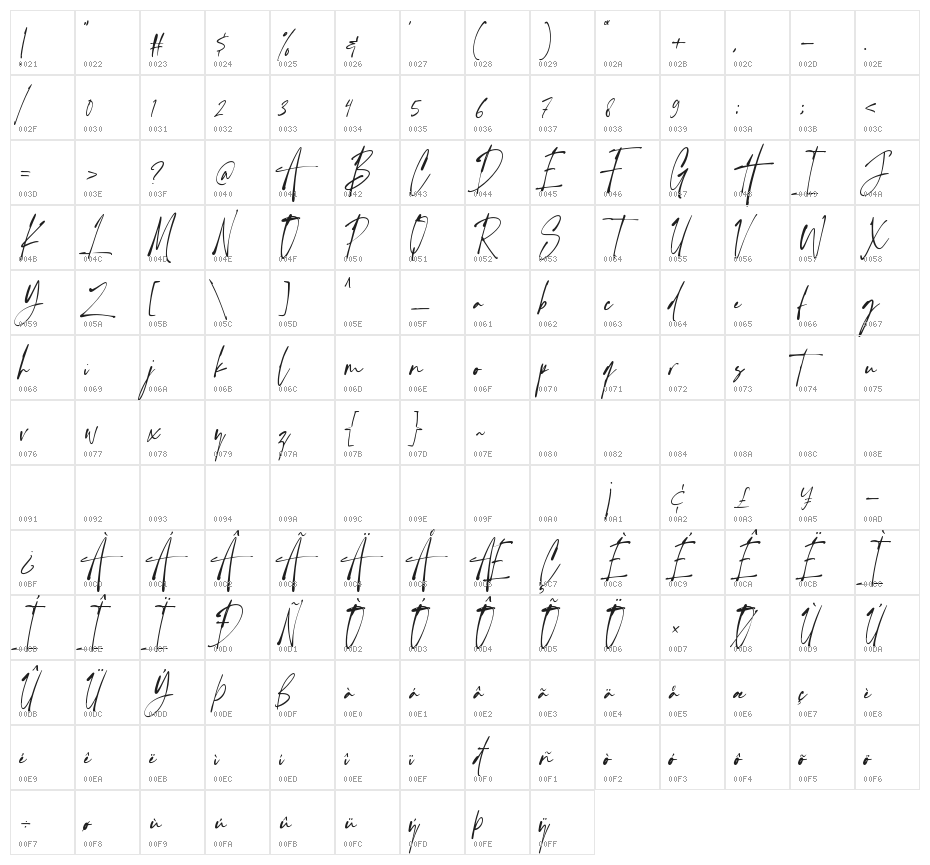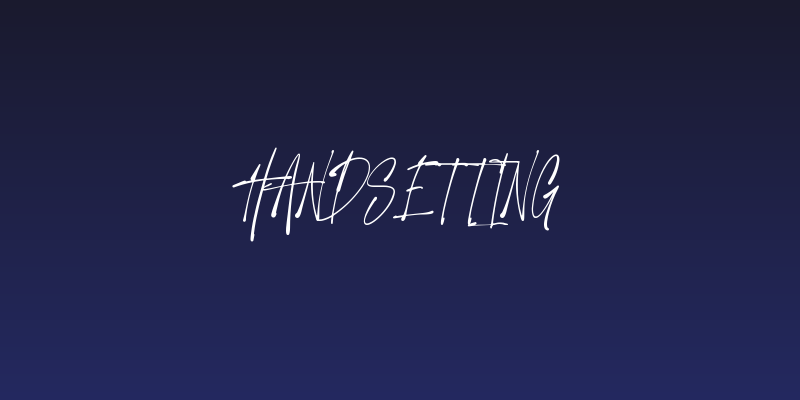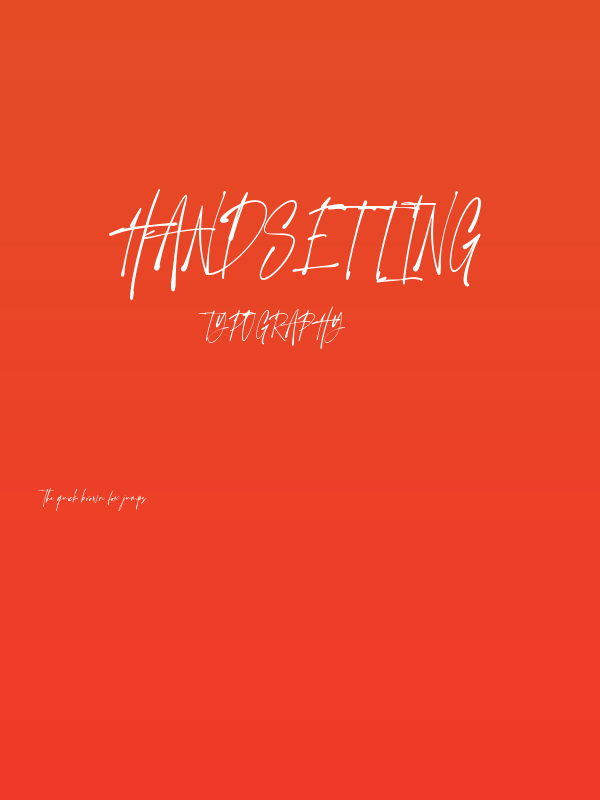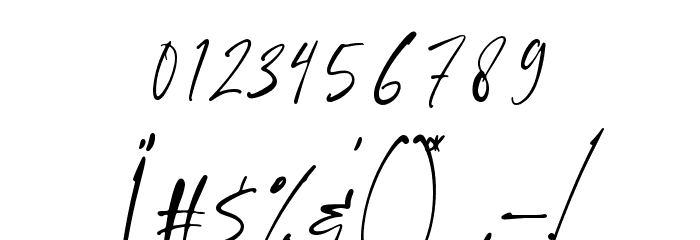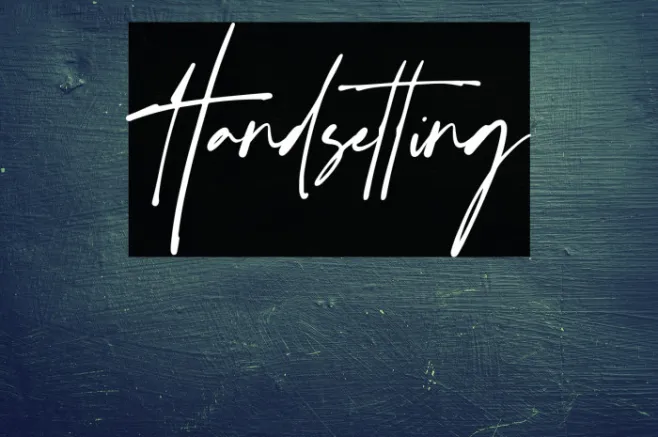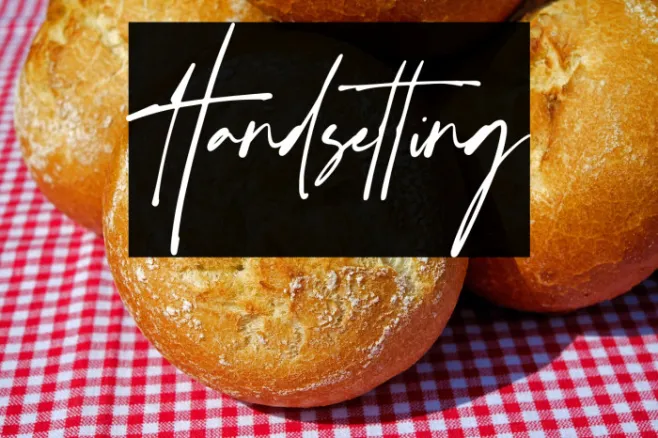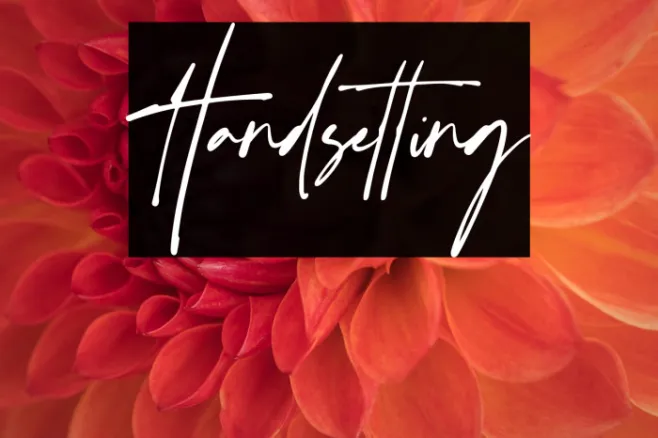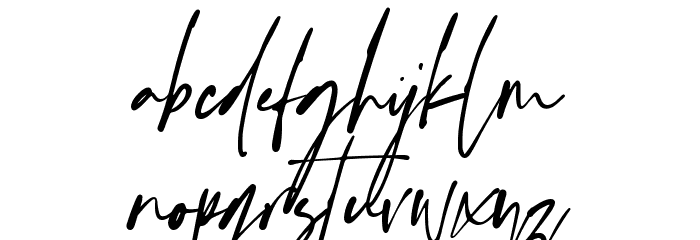
Handsetting Font
Handsetting Description
This font exudes a dynamic and expressive handwritten style, characterized by its fluid and cursive strokes. The letters are interconnected with a natural flow, giving it an authentic handwritten appearance. The uppercase letters are tall and slightly narrow, while the lowercase letters maintain a consistent rhythm with varying heights and loops. The numerals and special characters are crafted with the same energetic flair, adding to the font's cohesive look. This font's unique style makes it stand out, offering a personal and artistic touch to any design.